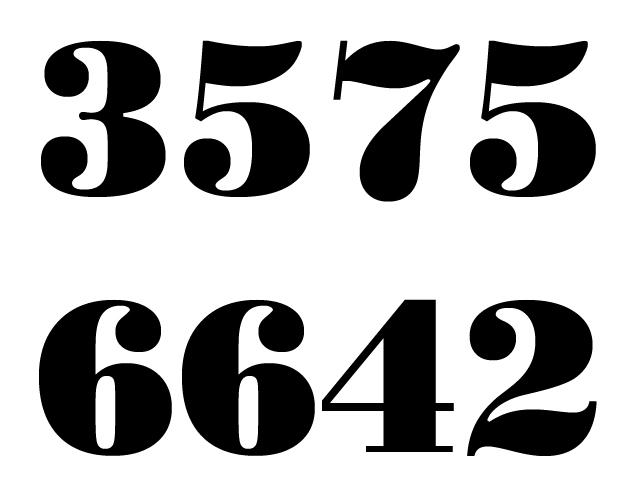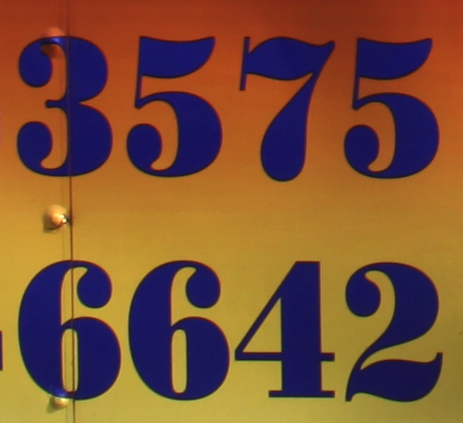
Stencil type Font ID
I thought this was just Stencil font but all of my Stencil fonts have openings in the letters. I need a closed stencil. Any help is appreciated.
I don't know how you would make a stencil with a "closed" font. The centers of the letters & numbers would fall out.
I'm not making a stencil. With the word "stencil", I was referring the Stencil font that is on most computers that replicates the looks of an actual stencil. The numbers in my pic have the shape of that "stencil" font but without the gaps.
I'm wondering if he saw my identification of the font as Poster Bodoni in post #2.